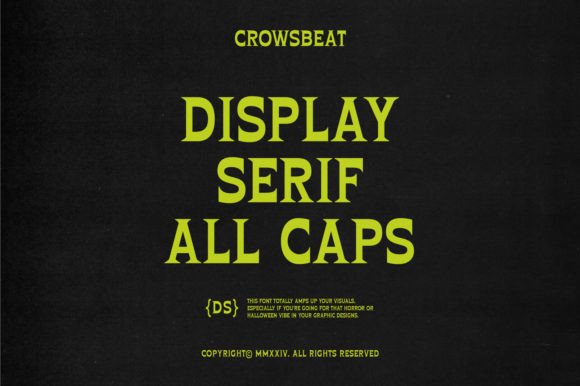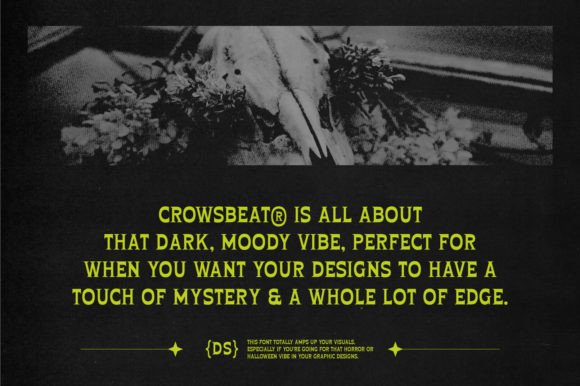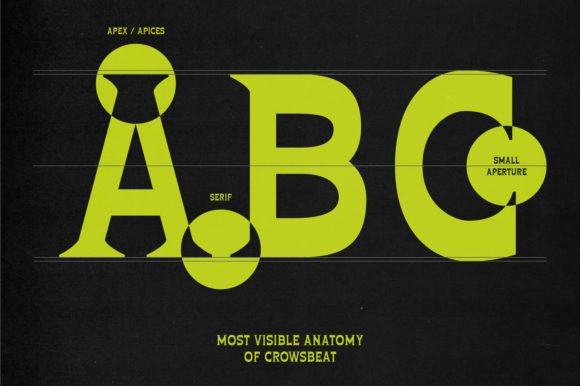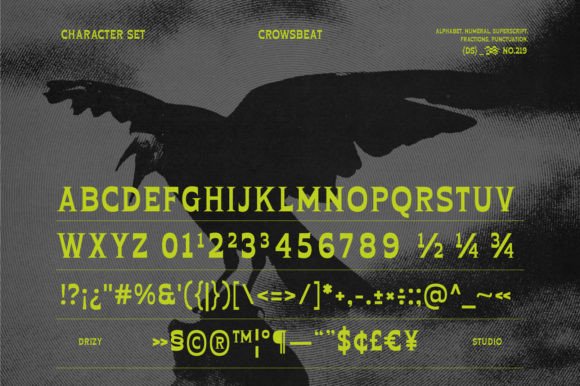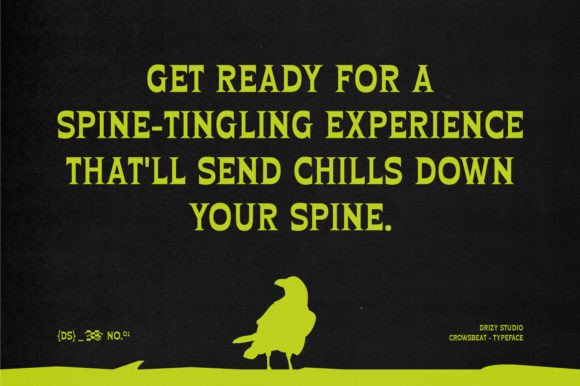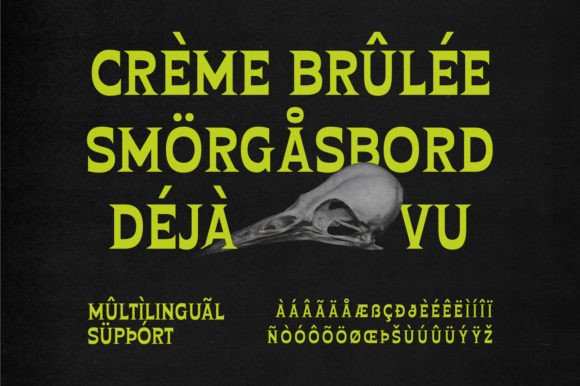
Crowsbeat Font: The Spine-Chilling Typeface for Horror-Themed Designs
As the spookiest time of the year approaches, designers and crafters are on the lookout for typography that captures the eerie essence of Halloween. Look no further than Crowsbeat, a reversed contrast horror font that will send shivers down your audience’s spine. In this article, we’ll dive into the unique features of Crowsbeat and explore how it can elevate your horror-themed projects.
The Unique Reversed Contrast Design
Crowsbeat’s design is a masterclass in typographic innovation. Unlike traditional fonts, Crowsbeat features a reversed contrast design, where the thick and thin strokes are swapped. This creates a strikingly unsettling effect that’s perfect for horror-themed designs. The reversed contrast design gives Crowsbeat a distinctive, eye-catching quality that will make your designs stand out from the crowd.
Eerie Essence of Halloween
Crowsbeat embodies the spooky spirit of Halloween, making it the perfect choice for designers and crafters looking to create eerie and atmospheric designs. The font’s dark, bold lines and haunting curves evoke the feeling of a haunted mansion or a creepy abandoned asylum. Whether you’re designing invitations, posters, or social media graphics, Crowsbeat will add a touch of macabre whimsy to your creations.
Perfect for Horror-Themed Projects
Crowsbeat is specifically designed for horror-themed projects, making it a versatile font for a range of applications. From horror movie posters to haunted house invitations, Crowsbeat brings an element of dread and suspense to your designs. The font’s unsettling effect is sure to grab your audience’s attention and leave a lasting impression.
Adding a Dark, Atmospheric Touch
One of the key benefits of Crowsbeat is its ability to add a dark, atmospheric touch to your designs. The font’s bold lines and haunting curves create a sense of foreboding, drawing your audience into a world of horror and suspense. Whether you’re creating a spooky logo, a creepy flyer, or a haunting social media graphic, Crowsbeat will help you set the tone for a chilling experience.
Embracing the Shadows
With Crowsbeat, you can let your creativity run wild and embrace the shadows. The font’s unique design and eerie essence make it the perfect choice for designers and crafters looking to push the boundaries of typography. Whether you’re a seasoned designer or a DIY crafter, Crowsbeat will inspire you to create something truly terrifying.
Tips for Using Crowsbeat
To get the most out of Crowsbeat, here are a few tips to keep in mind:
- Use Crowsbeat in large sizes to maximize its impact. The font’s bold lines and haunting curves are perfect for headlines and titles.
- Experiment with different colors to create a unique look. Crowsbeat looks great in bold, bright colors, but it also works well in muted, pastel shades.
- Pair Crowsbeat with other fonts to create a striking contrast. The font’s bold lines and haunting curves work well with simpler fonts, creating a visually appealing contrast.
Crowsbeat is a game-changing font for designers and crafters looking to create horror-themed designs. Its unique reversed contrast design, eerie essence, and dark, atmospheric touch make it the perfect choice for a range of applications. Whether you’re designing for Halloween or simply looking for a font that will add a touch of macabre whimsy to your creations, Crowsbeat is the perfect choice. So why wait? Embrace the shadows and let Crowsbeat lead your creativity into the nightmarish unknown.